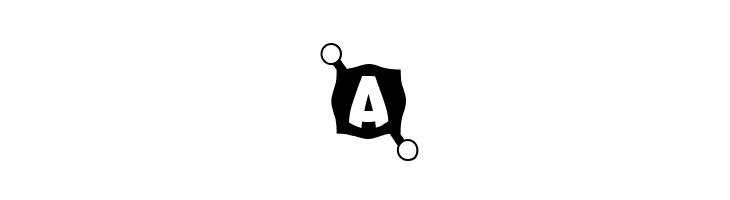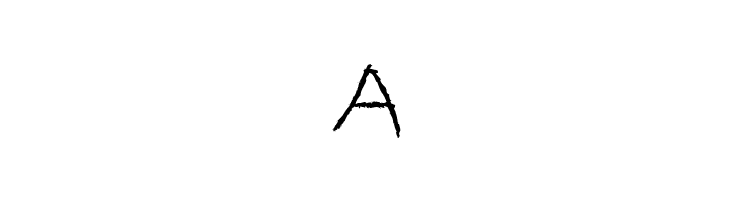
An elegant script font with flowing, decorative strokes and graceful flourishes.
A lively, cursive font with a handwritten, elegant style.
A whimsical, handwritten font with a playful and elegant style.
An elegant, flowing script font with dynamic strokes and artistic flair.
A lively handwritten font with dynamic strokes and playful elegance.
A dynamic, brush-style font with expressive, handcrafted strokes.
A bold, playful font with whimsical curves and decorative serifs.
A whimsical and decorative font with playful curls and loops.
An elegant script font with intricate swirls and flowing cursive style.
A casual, elegant handwritten font with smooth, flowing lines.
A lively, expressive handwritten font with fluid strokes and elegant flair.
A playful, balloon-like font with rounded, bold characters.
A playful, balloon-like italic font with bold, rounded characters.
A playful, balloon-like font with rounded, glossy characters.
A playful, balloon-like font with rounded and elongated letterforms.
A playful, balloon-themed font with bold, rounded characters and a whimsical style.
A playful balloon-themed font with rounded, bubbly characters.
A playful, bold font with rounded, balloon-like characters.
A playful font with characters inside balloon shapes, perfect for festive designs.
A playful, balloon-like font with rounded, bold characters.
A bold, dynamic font with a playful and modern style.
A casual, handwritten-style font with smooth, medium-thick strokes.
A playful, handwritten script font with smooth, flowing characters.
A casual, elegant handwritten script with fluid, interconnected letters.
An elegant and flowing script font with ornate, cursive characters.
An elegant, flowing script font with thin, elongated strokes and graceful curves.
A bold, modern font with thick, uniform strokes for impactful design.
A dynamic and elegant script font with flowing, slender letterforms.
A dynamic, modern font with elongated, slanted characters and a bold presence.
A lively handwritten font with fluid strokes and a casual elegance.